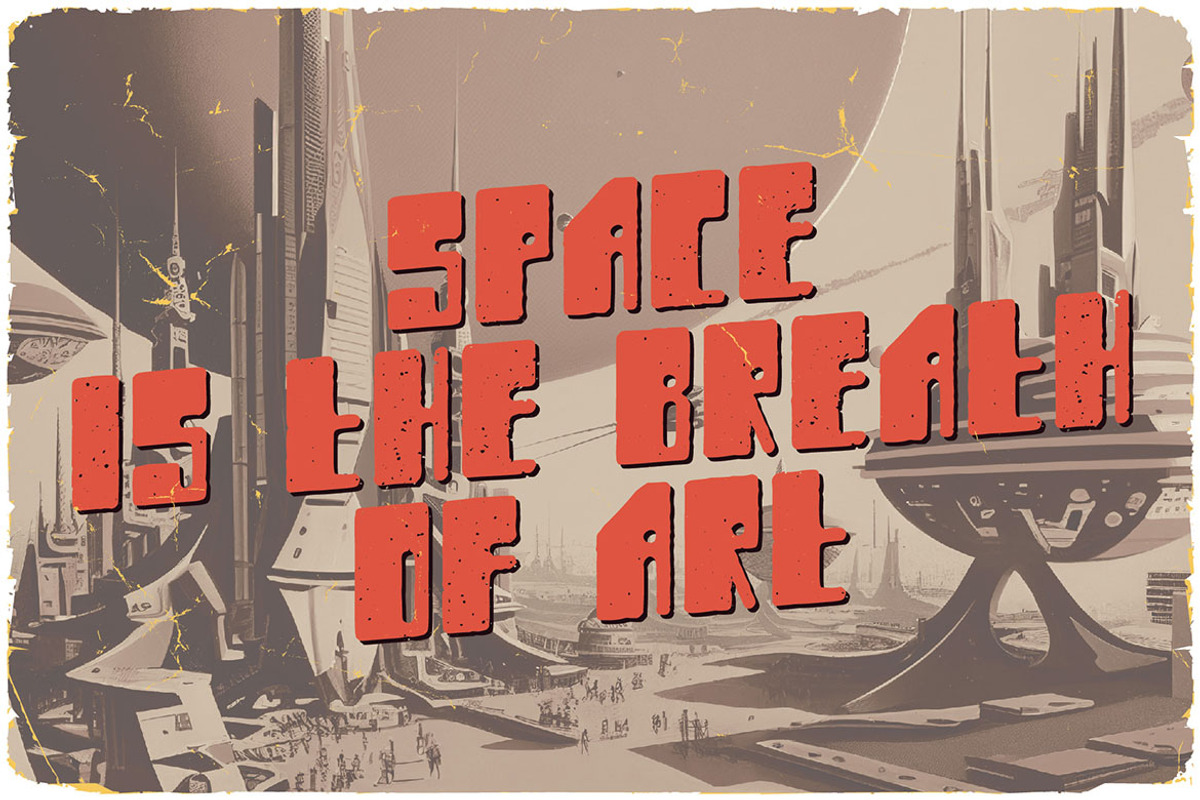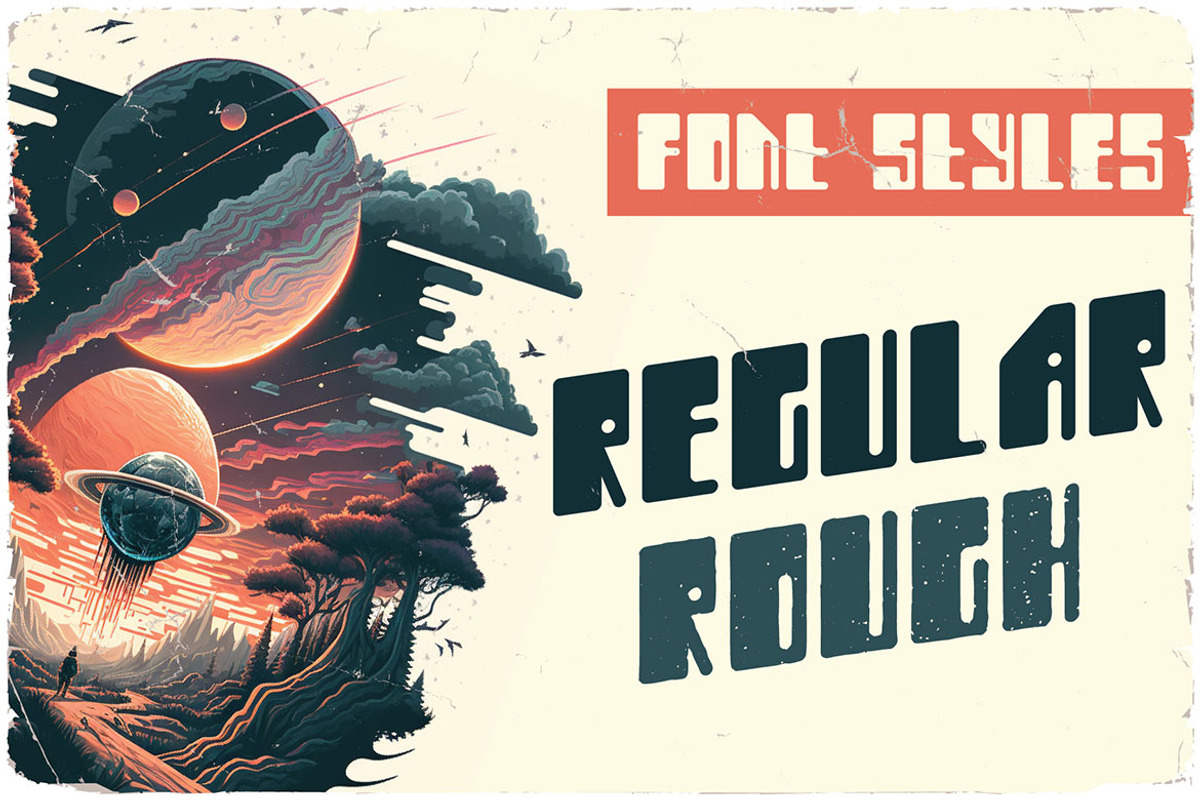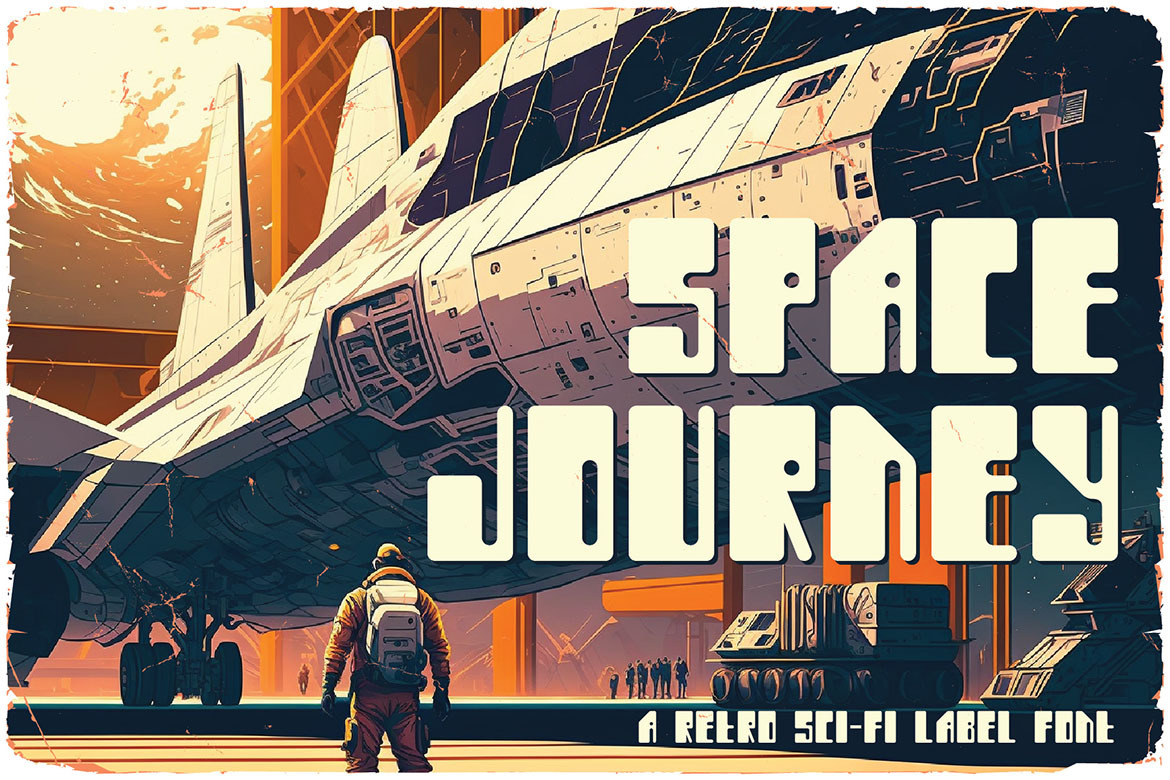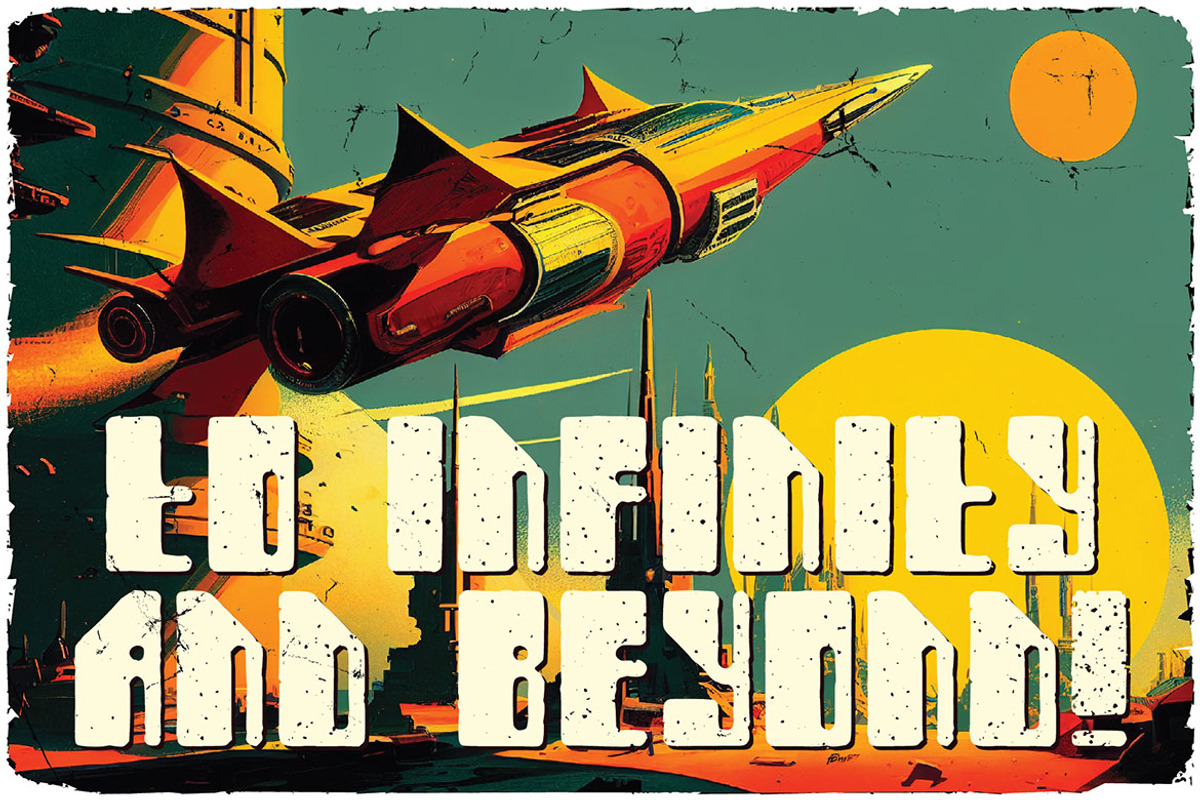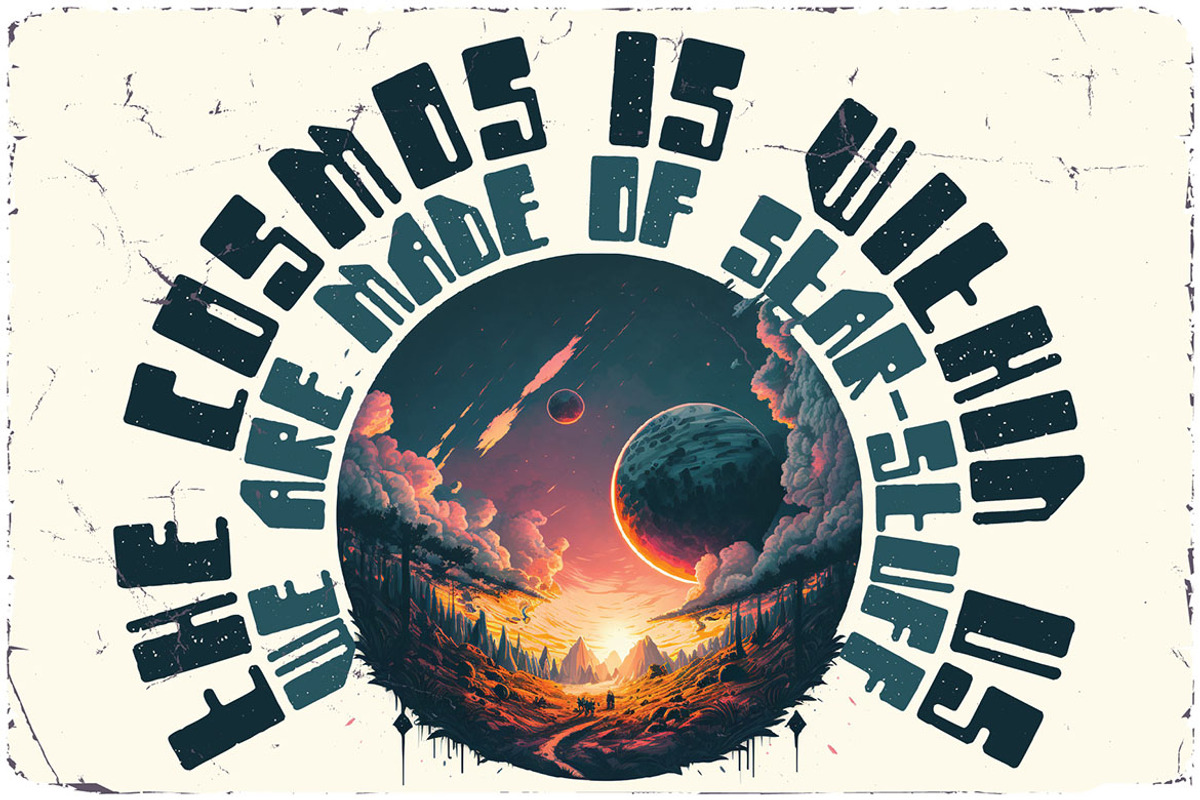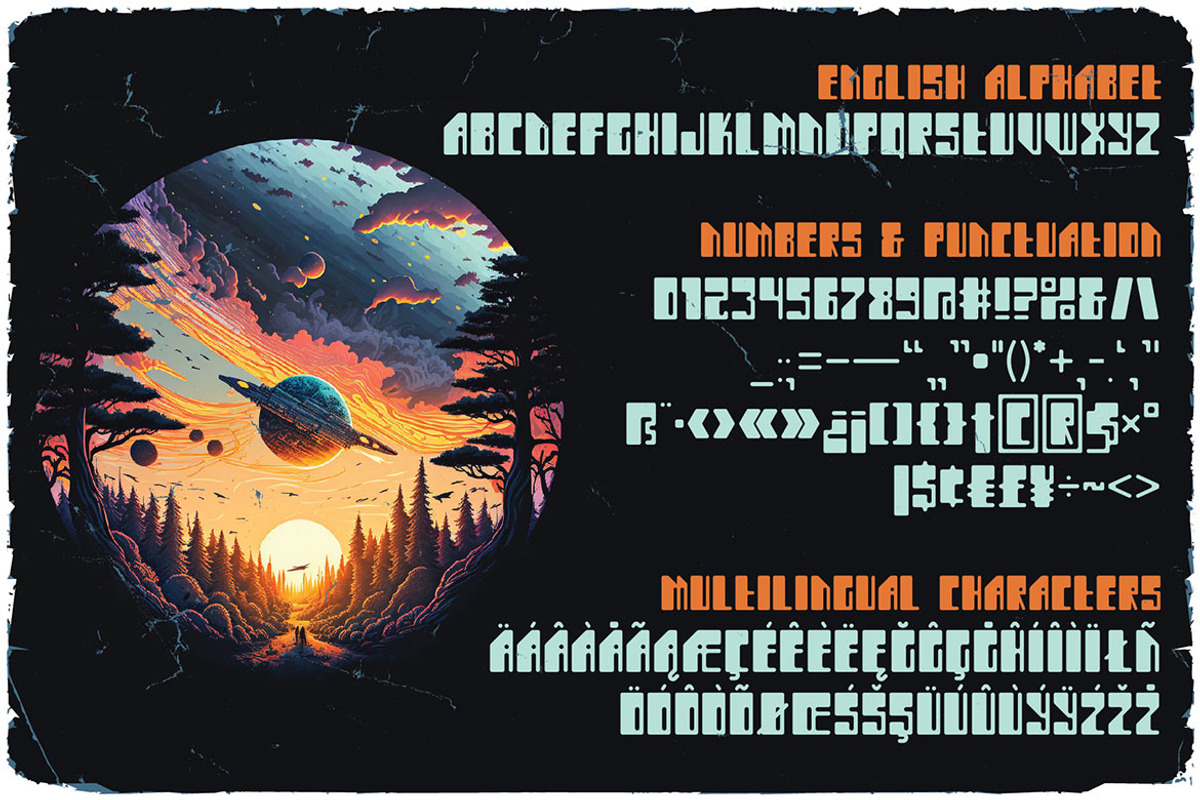
Space Journey Display Font
Unique, playful, bold, rounded, scifi & retro sans serif font. Comes with multilingual support & 2 font versions - great for your new logo or branding project.
- 2 font versions
- Great for retro or vintage style branding projects